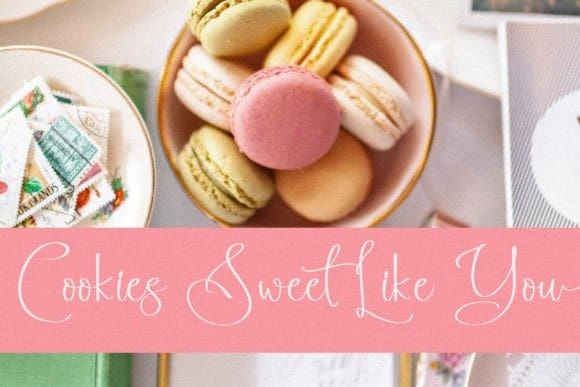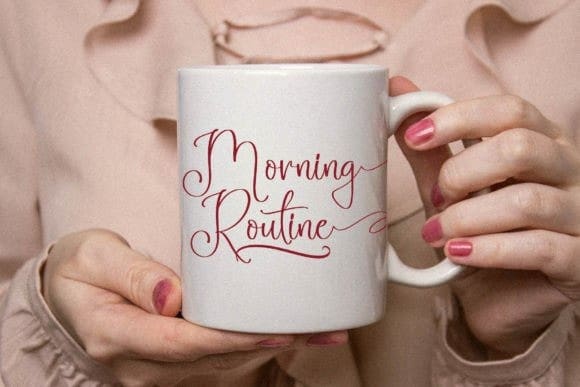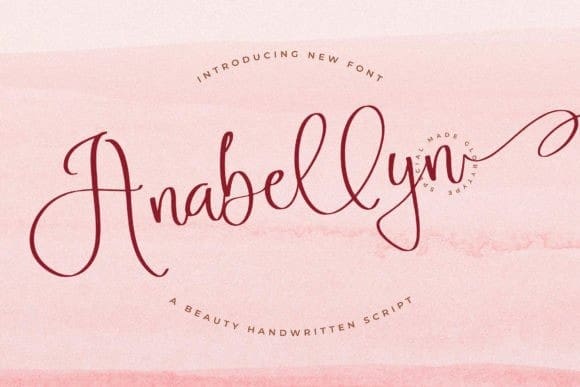
Anabellyn Script Font
Anabellyn Script Font is an enchanting handwritten font. This versatile script font has a wide spectrum of applications ranging from greeting cards to headlines and is guaranteed to add a romantic feel to your next project.